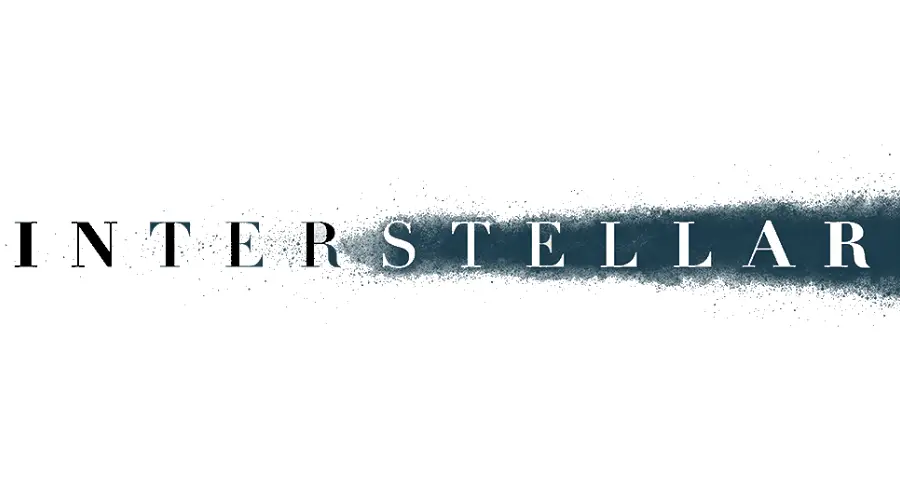
Short answer: Linotype Didot Pro Bold is a close visual comparison for the high-contrast serif lettering in the Interstellar title shown here. It should not be called the confirmed original font: Paramount’s official film page presents the movie and artwork but does not publish a typeface credit. OPTI Bodoni Antiqua 2 is a broader Bodoni-style alternative with unverified source terms.
Why Didot looks close
The title uses narrow capitals, strong thick-to-thin contrast, fine unbracketed serifs, and generous spacing. Those are Didone traits shared by Didot and Bodoni families. Linotype’s Didot Pro Bold listing credits Adrian Frutiger, Firmin Didot, and the Linotype Design Studio. The family provides the right period-neutral elegance, but a visual resemblance is not proof that the film artwork used an untouched retail font.
Comparison and source status
How to create a similar cinematic title
Set a short word in capitals, increase the tracking, and keep the background quiet so the fine serifs stay visible. Test at the final size: high-contrast strokes can disappear in small thumbnails or low-resolution exports. If the design needs paragraphs as well as a title, pair the display serif with a restrained sans serif rather than using Didot for long text.